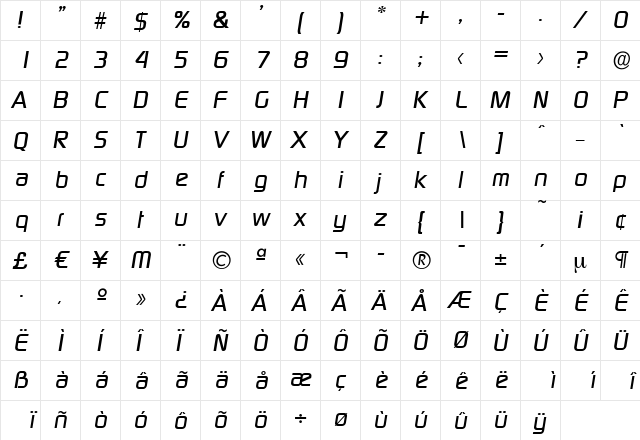
RandyBecker Bold Italic
Design Context for RandyBecker Typeface
RandyBecker is a composed and adaptable typeface that performs quietly and consistently across a wide range of design contexts. Its italic angle brings a sense of urgency and motion to the letterforms. Its bold stroke weight gives it real presence on the page.